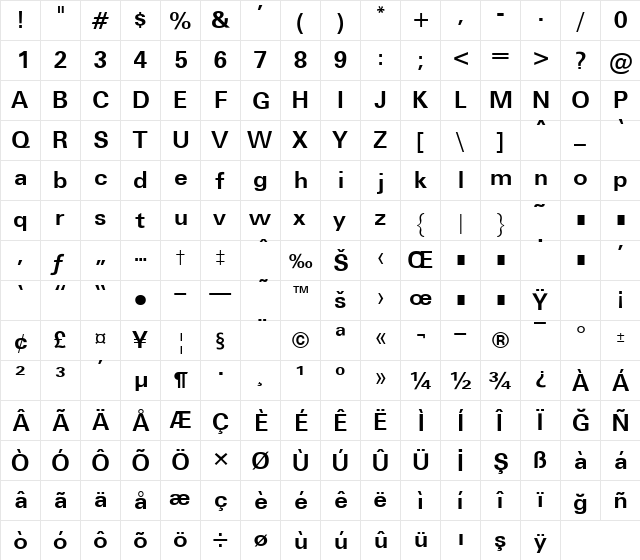
UnvTr Bold
Design Context for UnvTr Typeface
UnvTr is a composed and adaptable typeface that performs quietly and consistently across a wide range of design contexts. Its bold stroke weight gives it real presence on the page.